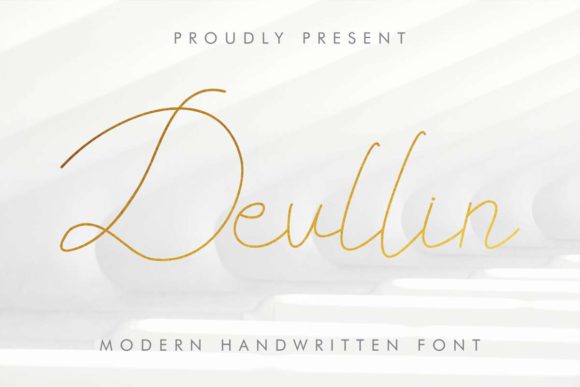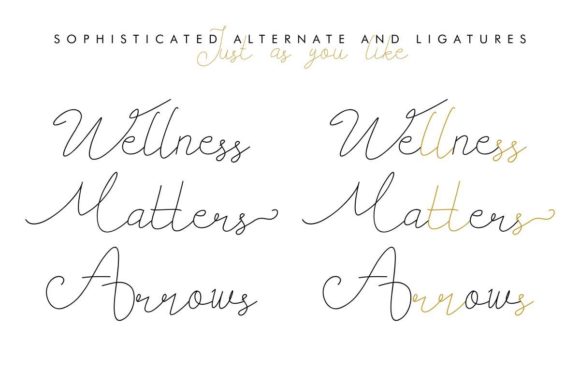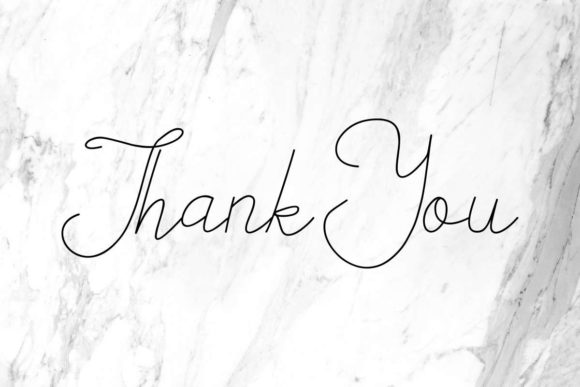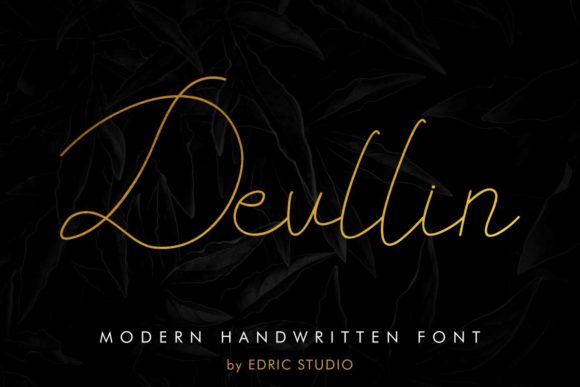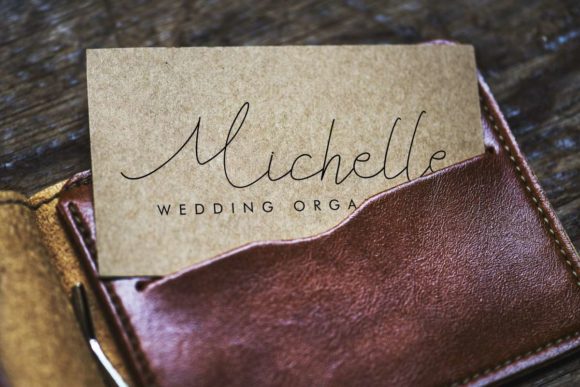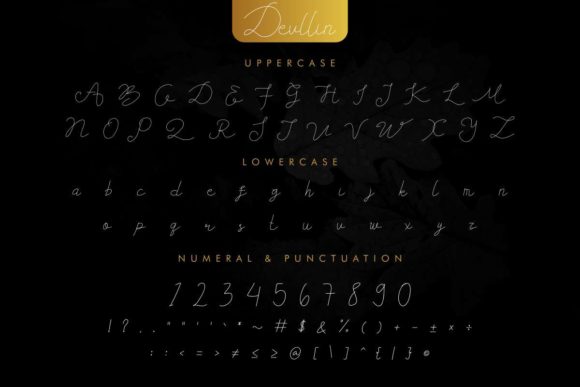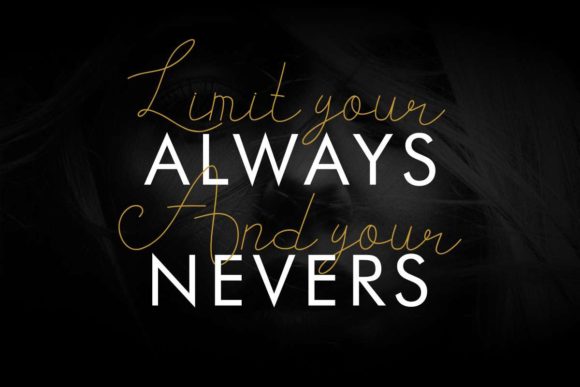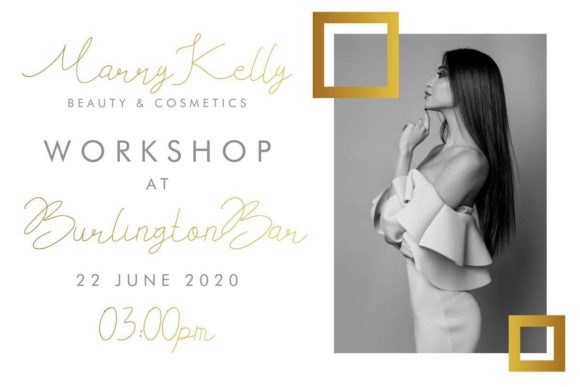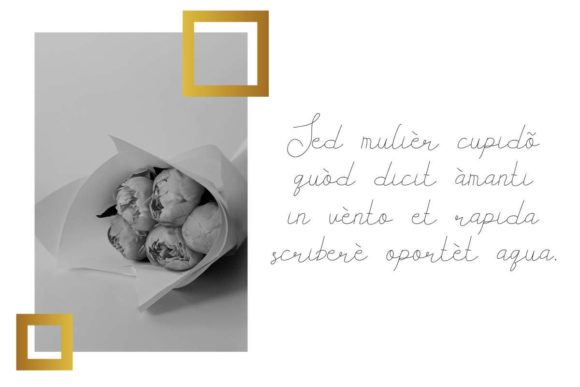
Devllin Font
About Devllin Font
Devllin is a lovely script font that radiates charm and authenticity. Use it to turn any design project into an authentic piece of art.